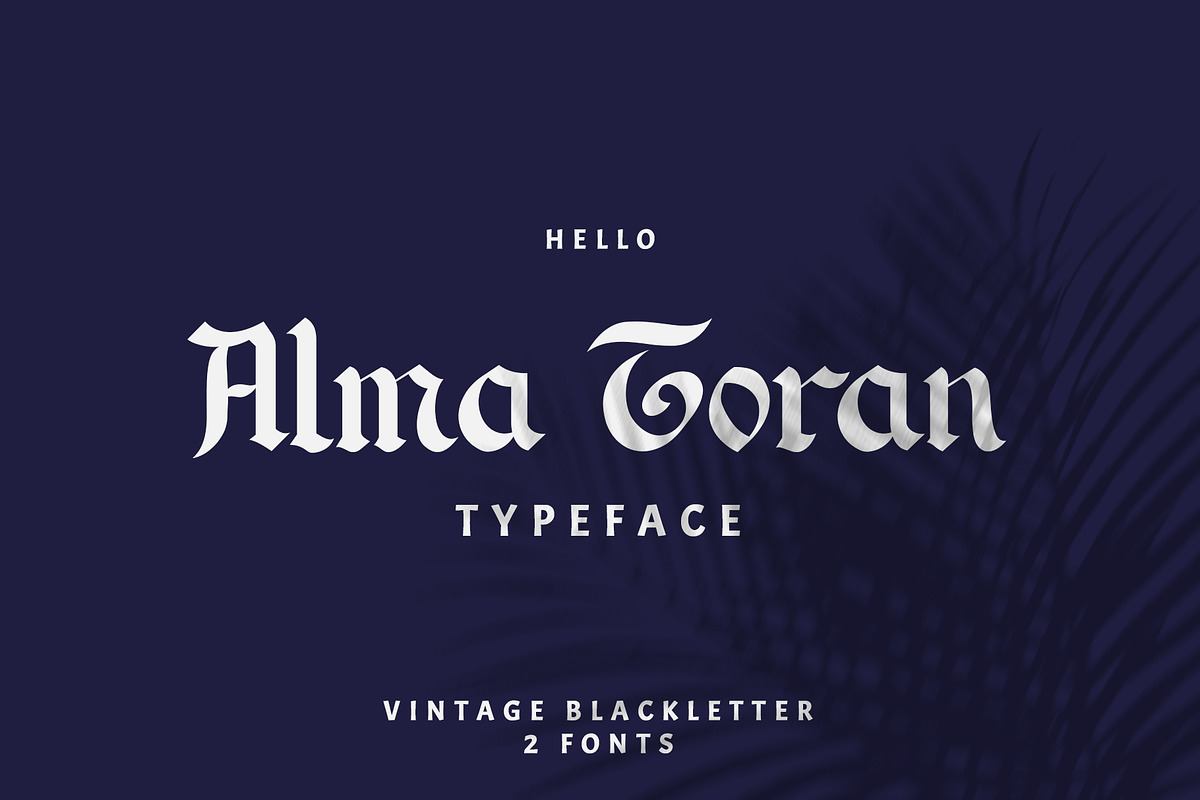
Alma Toran Typeface Free Download
Alma Toran Typeface Free Download is a modern, elegant typeface designed to add sophistication and style to your design projects. With clean lines, refined letterforms, and a timeless aesthetic, this font is ideal for high-end branding, editorial designs, logos, invitations, and more. Its versatility makes it suitable for both digital and print applications, ensuring your typography always looks polished and professional.
Whether you're creating for luxury brands, designing modern websites, or working on creative print materials, Alma Toran offers a balance of beauty and readability, making it an excellent choice for a wide range of uses.
Add sophistication and elegance to your designs with Alma Toran Typeface Free Download, and create modern, stylish typography that leaves a lasting impression. Perfect for designers looking for a refined, contemporary typeface.